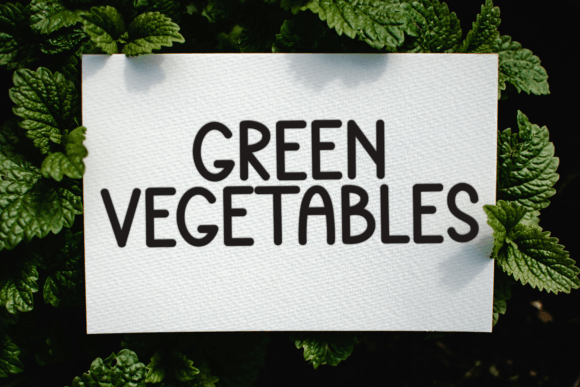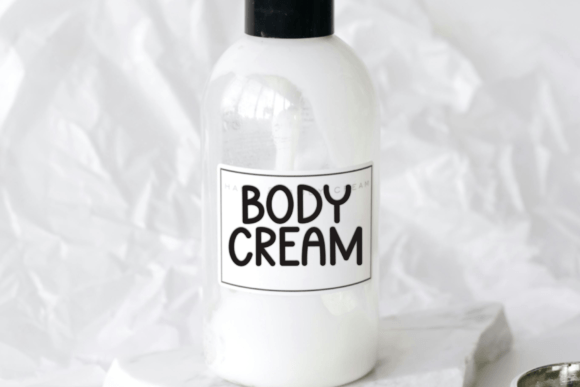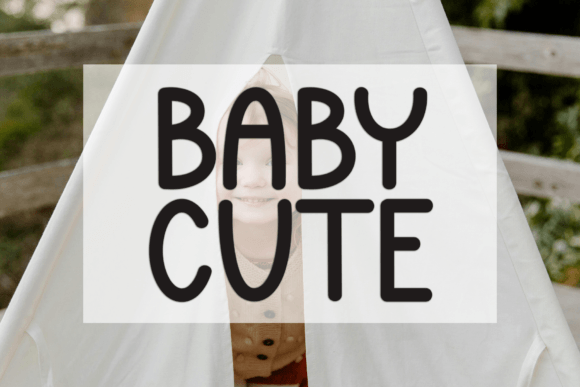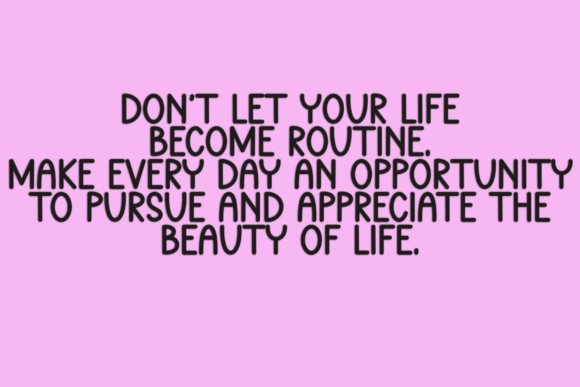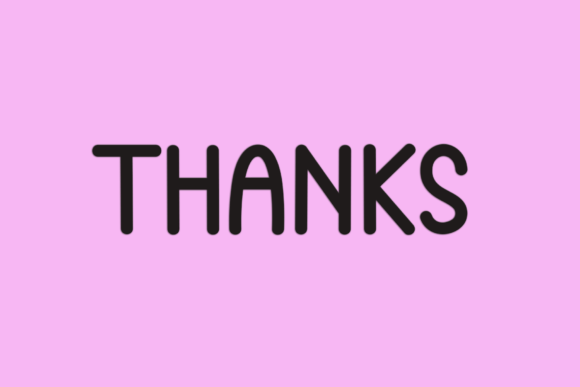
Dream Family Font: The Ultimate Choice for Designers and Crafters
Are you a designer, crafter, or DIY enthusiast looking for a fun and versatile handwritten font to elevate your creative projects? Look no further than the Dream Family Font! This delightful font is perfect for a wide range of applications, from crafting and digital designing to presentations and greeting card making.
What is Dream Family Font?
Dream Family Font is a carefully crafted handwritten font that exudes a playful and carefree spirit. Its unique charm and character make it an excellent choice for anyone looking to add a personal touch to their designs. Whether you’re creating digital content, printing materials, or handmade crafts, this font is sure to bring a smile to your audience’s faces.
Key Features of Dream Family Font
- Handwritten style: Dream Family Font boasts a beautiful, handwritten style that’s perfect for creating personalized and engaging content.
- Versatility: This font is incredibly versatile and can be used for a wide range of projects, from digital designs to handmade crafts.
- Easy to read: Despite its playful nature, Dream Family Font is easy to read, making it perfect for body text and captions.
- Extensive character set: The font includes an extensive character set, ensuring that you have access to a wide range of letters, numbers, and punctuation marks.
Use Cases for Dream Family Font
Dream Family Font is an excellent choice for various creative projects, including:
- Crafting: Add a personal touch to your handmade crafts, such as scrapbooking, journaling, and card making.
- Digital designing: Use Dream Family Font to create engaging social media graphics, blog posts, and website content.
- Presentations: Elevate your presentations with a playful and professional font that’s sure to capture your audience’s attention.
- Greeting card making: Create beautiful and personalized greeting cards for special occasions.
Why Choose Dream Family Font?
With so many fonts available, why choose Dream Family Font? Here are just a few reasons:
- Unique style: Dream Family Font offers a unique and refreshing style that’s sure to set your designs apart.
- Ease of use: This font is incredibly easy to use, even for those without extensive design experience.
- Time-saving: With Dream Family Font, you can create professional-looking designs in no time, saving you valuable time and effort.
Tips for Using Dream Family Font
To get the most out of Dream Family Font, here are a few tips:
- Experiment with colors: Try pairing Dream Family Font with different colors to create unique and eye-catching designs.
- Mix and match: Combine Dream Family Font with other fonts to create visually appealing and engaging designs.
- Pay attention to spacing: Make sure to adjust the spacing between letters and words to ensure optimal readability.